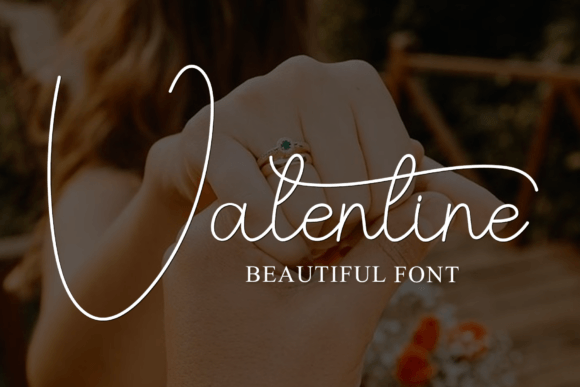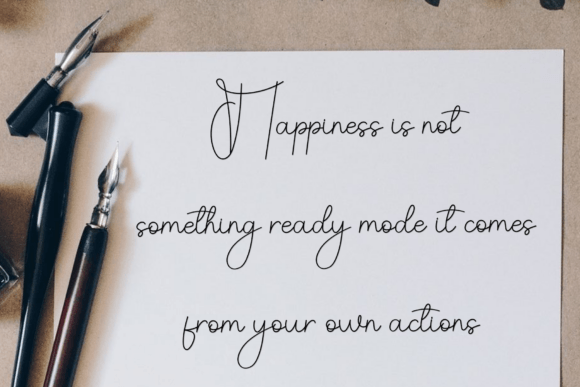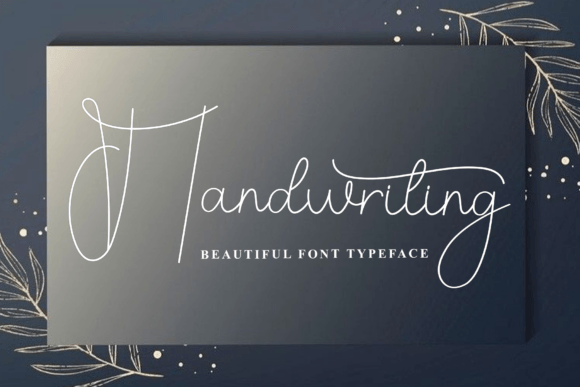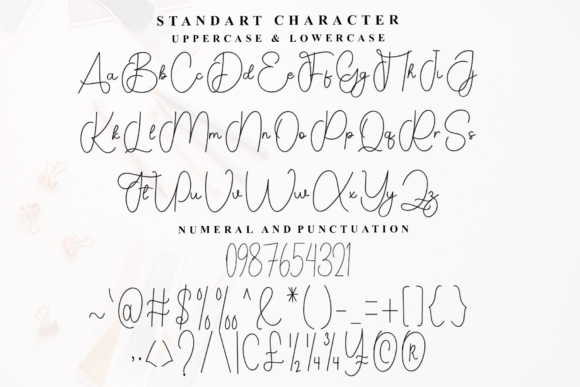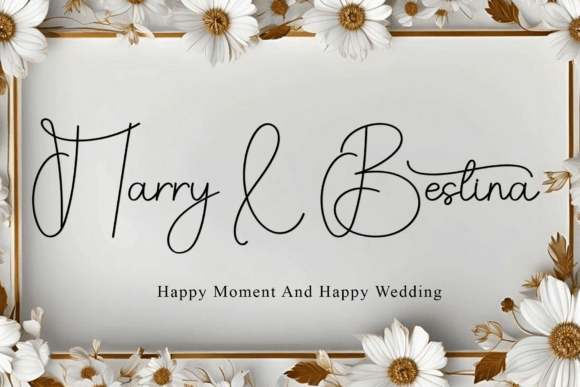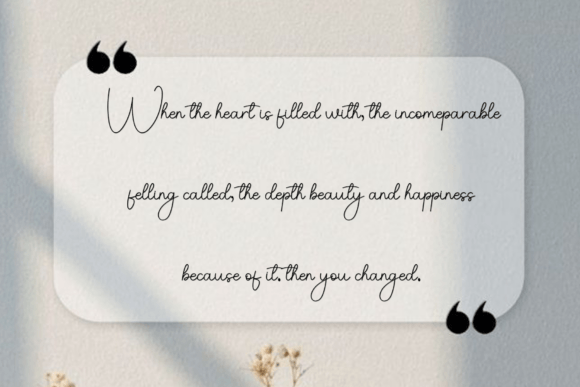
The Perfect Touch of Elegance: Beautiful Font
As designers, we’ve all been there – staring at a blank page, trying to come up with the perfect idea to capture the essence of our project. And then, it hits us – a spark of creativity that sets our imagination ablaze. For me, it was a beautiful handwritten note from a loved one, with letters that seemed to dance across the page. That’s when I knew I needed to find a font that could evoke the same feeling.
Enter Beautiful Font, a stunning script font that exudes elegance and sophistication. With its flowing, curvy letters, it’s the perfect choice for adding a touch of charm to invitations, greeting cards, or any project that needs a stylish, handwritten look. Whether you’re a seasoned designer or just starting out, Beautiful Font is a valuable addition to your toolkit.
Beautiful Font Key Features
- Unique Character Set: Beautiful Font features a unique set of ligatures, swashes, and ornaments that add a touch of elegance to any text.
- Weight and Style Options: Beautiful Font comes in 6 weights (Light, Regular, Medium, Bold, Black, and Outline) and 3 styles (Serif, Sans-Serif, and Script), offering a wide range of design possibilities.
Designer Review: Beautiful Font
At first glance, Beautiful Font seems like a great choice for any design project. It’s elegant, sophisticated, and easy to read. ✨ The subtle curves and rounded edges make it perfect for headings and titles. The font is also highly legible, even at smaller sizes, which is a must-have for any serious design project.
One of the standout features of Beautiful Font is its versatility. It works well in both digital and print formats, making it a great choice for a wide range of applications. ✨ The font is also highly customizable, allowing designers to adjust the weight, spacing, and style to suit their needs.
While Beautiful Font is an excellent choice for many projects, there are a few limitations to be aware of:
- ⚠️ Limited language support: Beautiful Font may not be compatible with certain languages or character sets.
- ⚠️ Not ideal for bold or condensed text: While the font is highly legible, it may not be the best choice for bold or condensed text.
- ⚠️ Limited web font support: Some older browsers may not support Beautiful Font, which could impact web design projects.
Overall, I would give Beautiful Font a solid 4 out of 5 stars. It’s a great choice for many design projects, but it’s essential to be aware of its limitations. With a little careful planning and consideration, Beautiful Font can be a fantastic addition to any design project.
Getting the Most Out of Beautiful Font
For the most effective use of Beautiful Font, consider the following tips:
1. Use it sparingly to create emphasis and visual interest.
2. Pair it with other fonts to create a harmonious and balanced design.
3. Experiment with different font sizes and styles to achieve the desired effect.
Beautiful Font is ideal for:
1. Headlines and titles.
2. Quotes and captions.
3. Branding and logos.